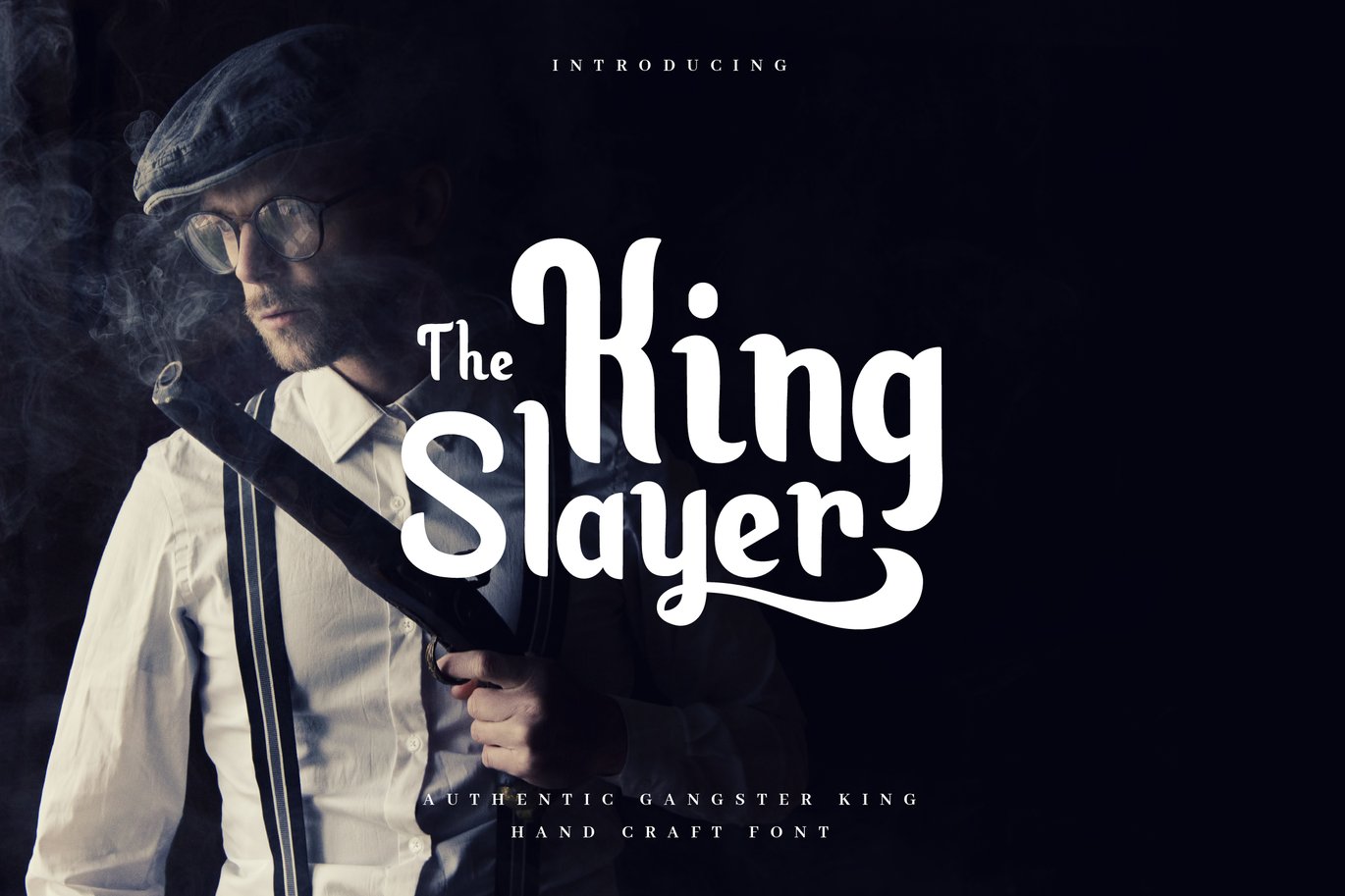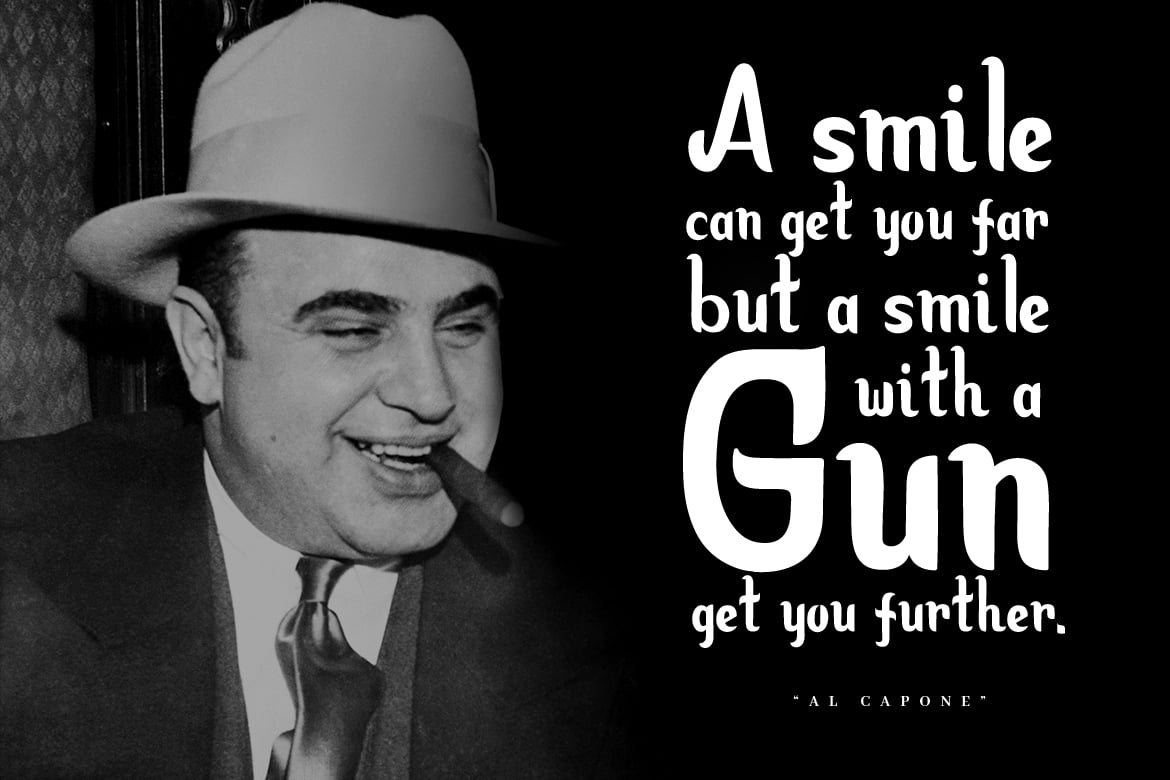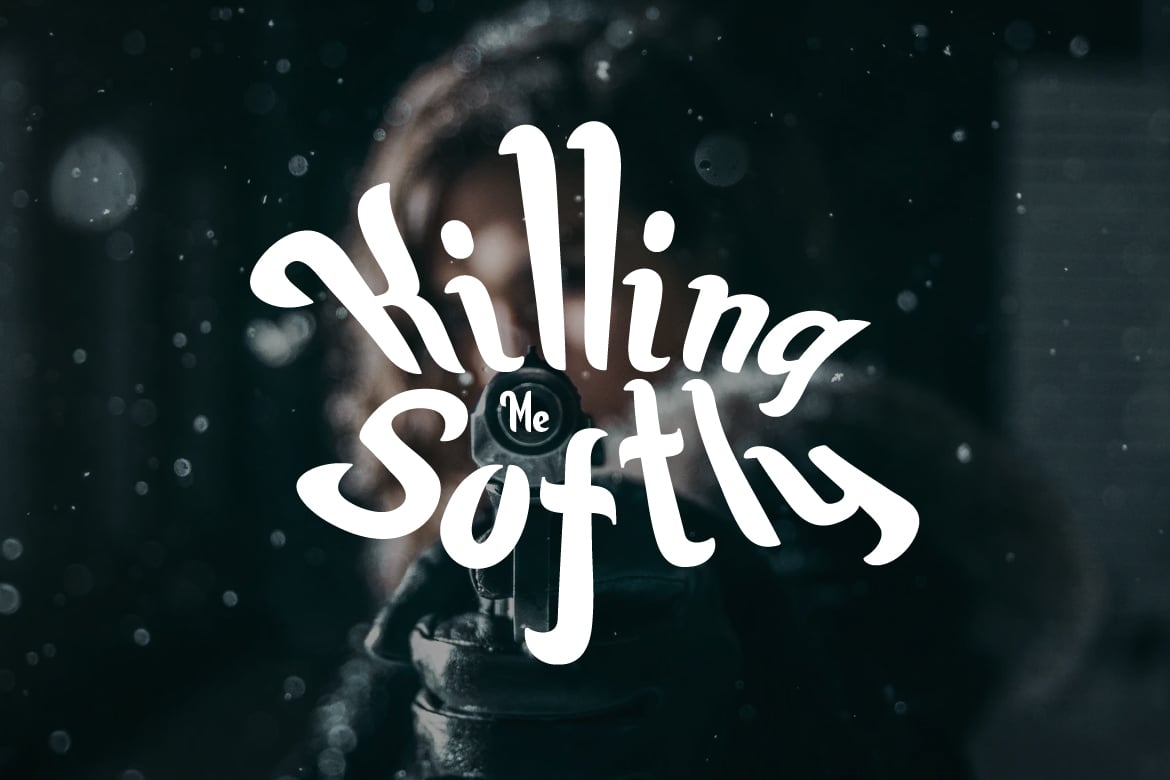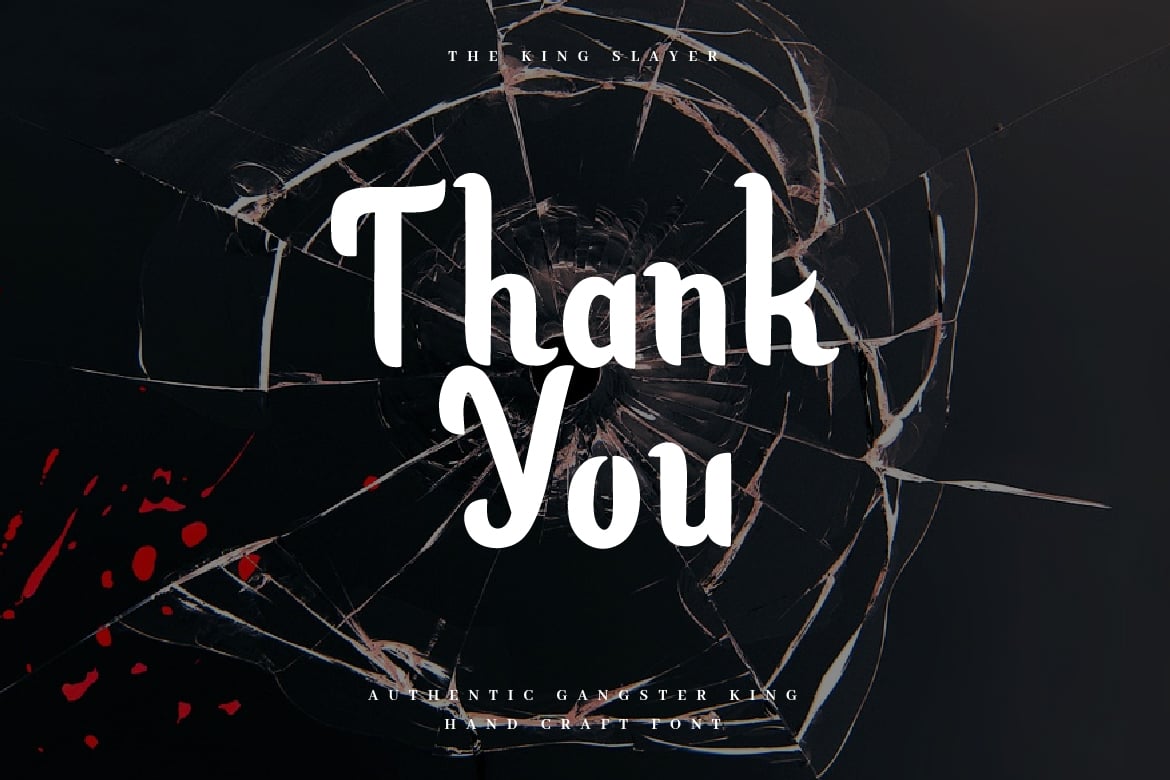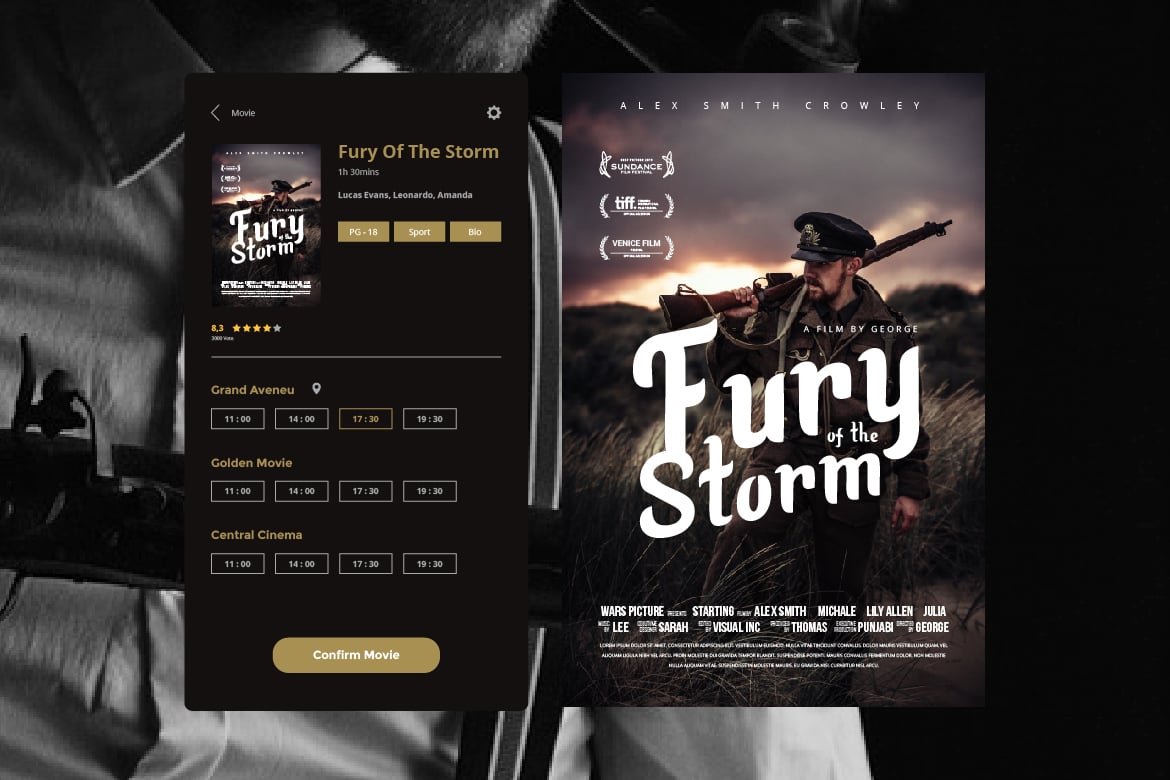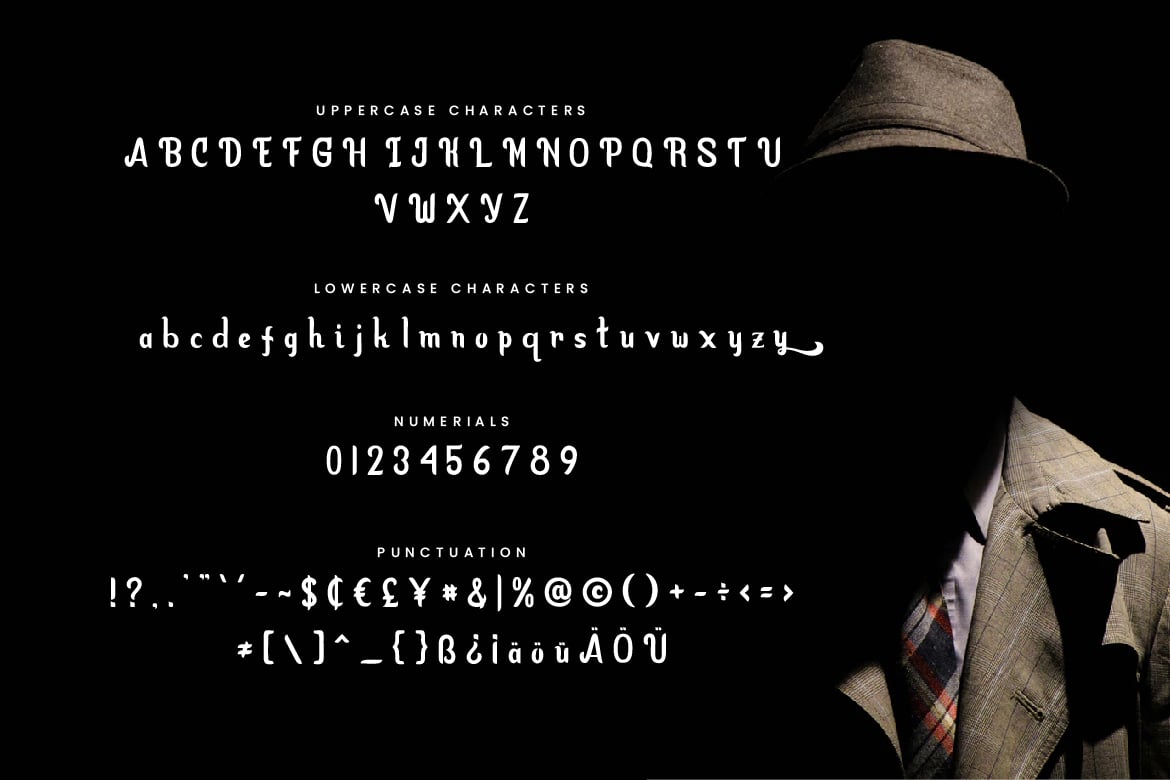
King Slayer – Elegant Serif Font
Are you looking for an elegant serif font? We can help! Try to download our King Slayer font. The font is suitable to use for all purpose. Try to use it on Wedding invitation, greeting card, poster, postcard, photography, branding, editorial, event and fashion.
- Multilangual Support for ä ö ü Ä Ö Ü